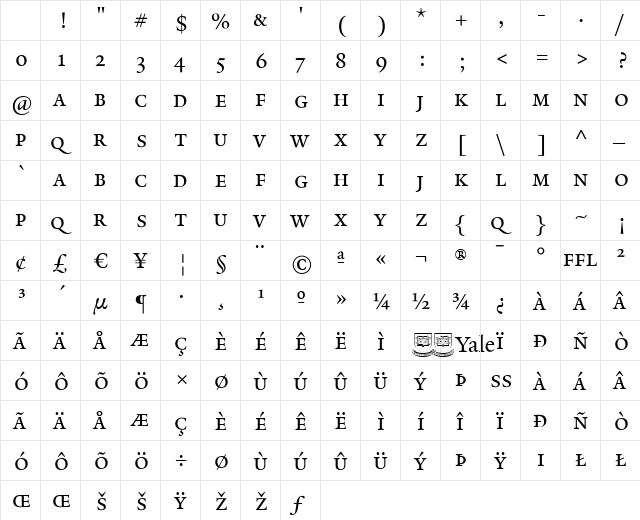
Complete YaleWebSmallCap Regular glyph index. Displaying only characters natively supported by YaleWebSmallCap Regular font.
YaleWebSmallCap is a composed and adaptable typeface that performs quietly and consistently across a wide range of design contexts.